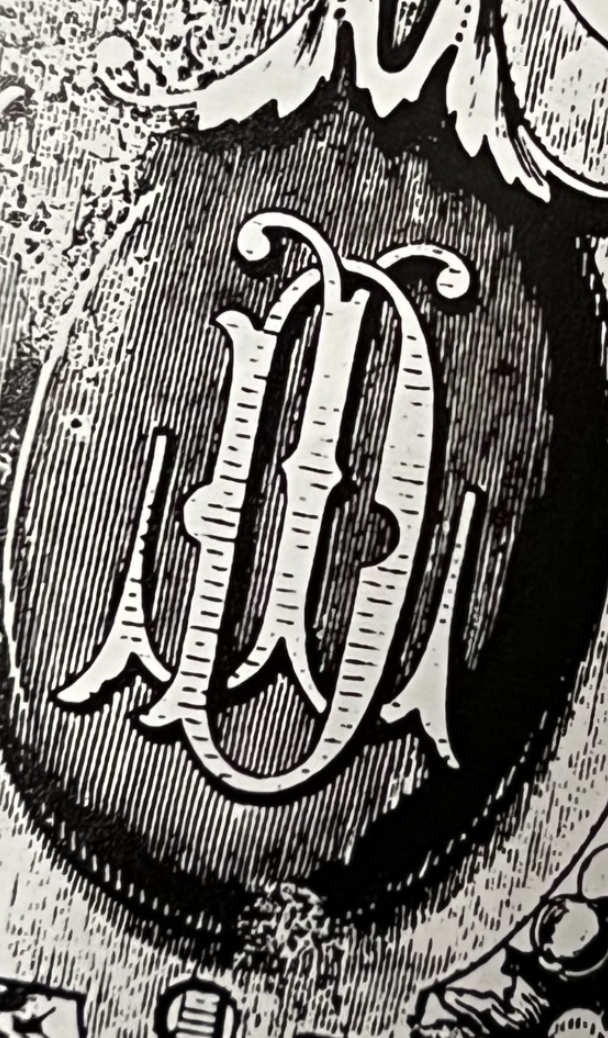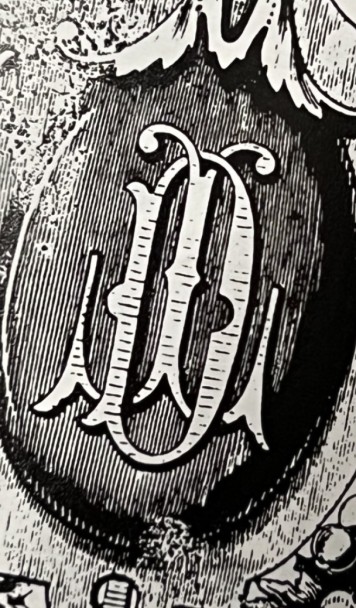
I have no idea where I can find that type or typeface to recreate a similar style logo
This composition was drawn by hand, not using type. If you are you looking to create a monogram, I’d draw it yourself, or hire a lettering artist. If your’re just looking for fonts in this style, check out Carmen Fiesta.